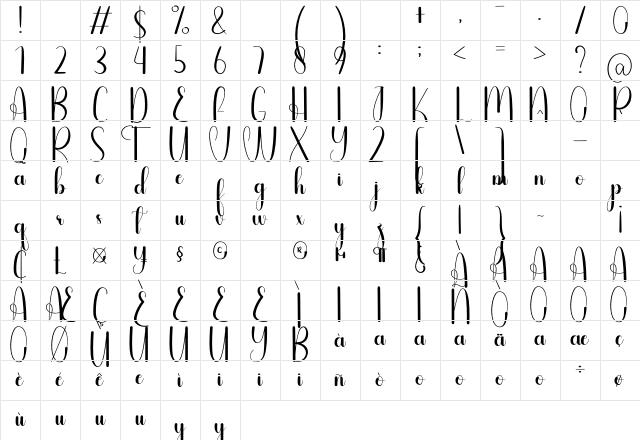
Handhome Regular
Design Context for Handhome
Handhome flows with the natural rhythm of handwritten lettering, making it ideal for designs that call for warmth and personal expression.
Font Pairing: Combine Handhome with a simple geometric sans for maximum contrast - the tension between flowing curves and clean structure is a classic typographic pairing.
Pro Tip: Use Handhome for short runs of text - names, titles, or taglines. Extended body copy in script faces tires the eye quickly.